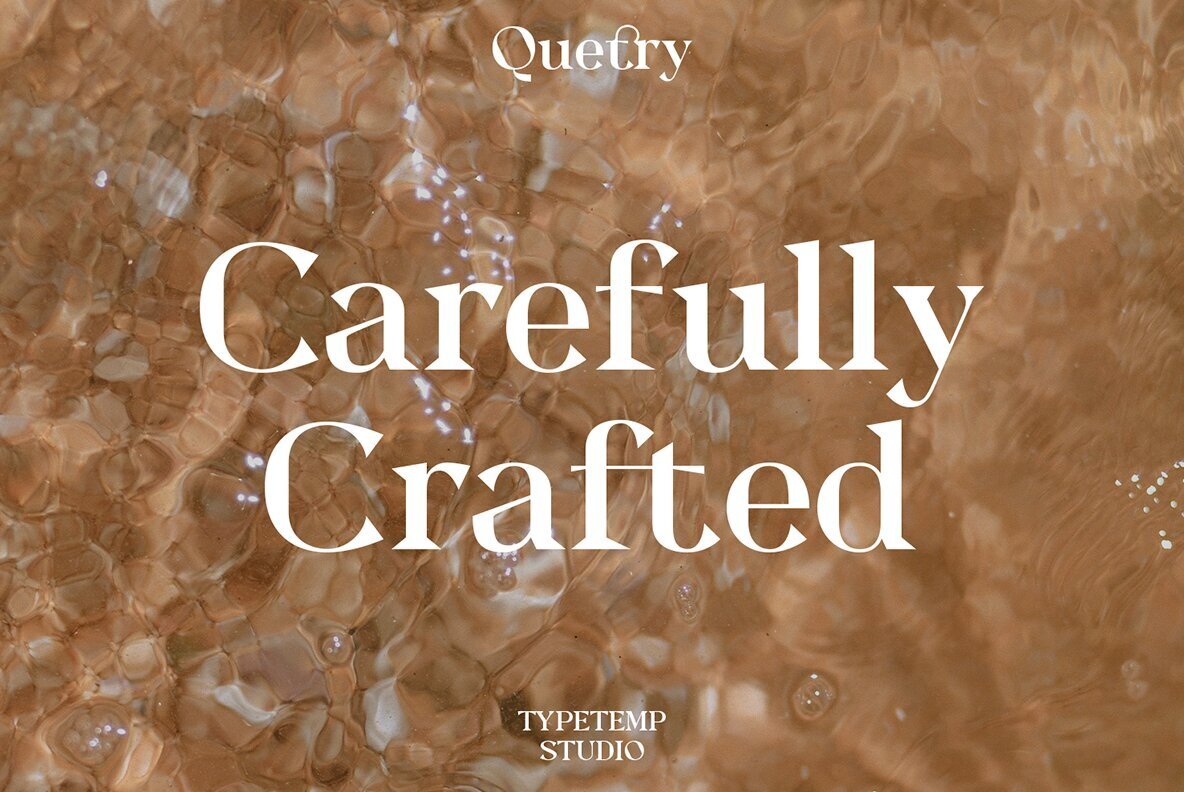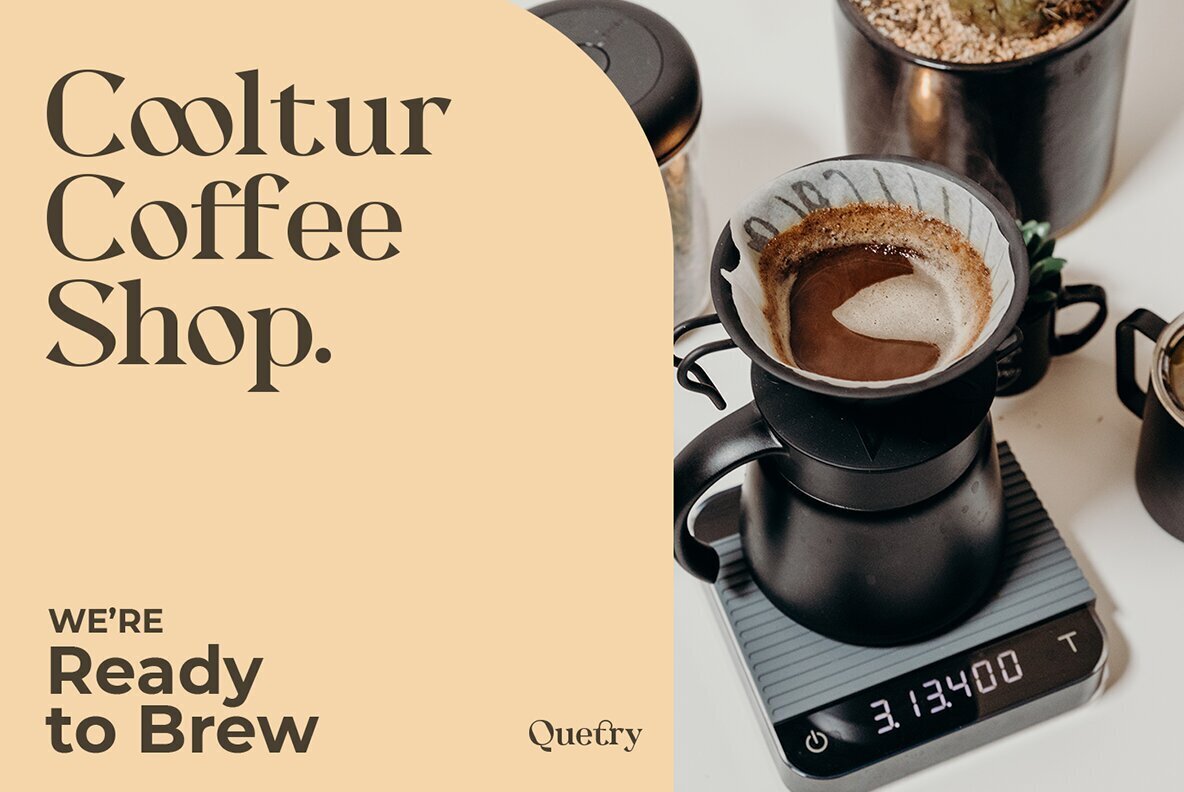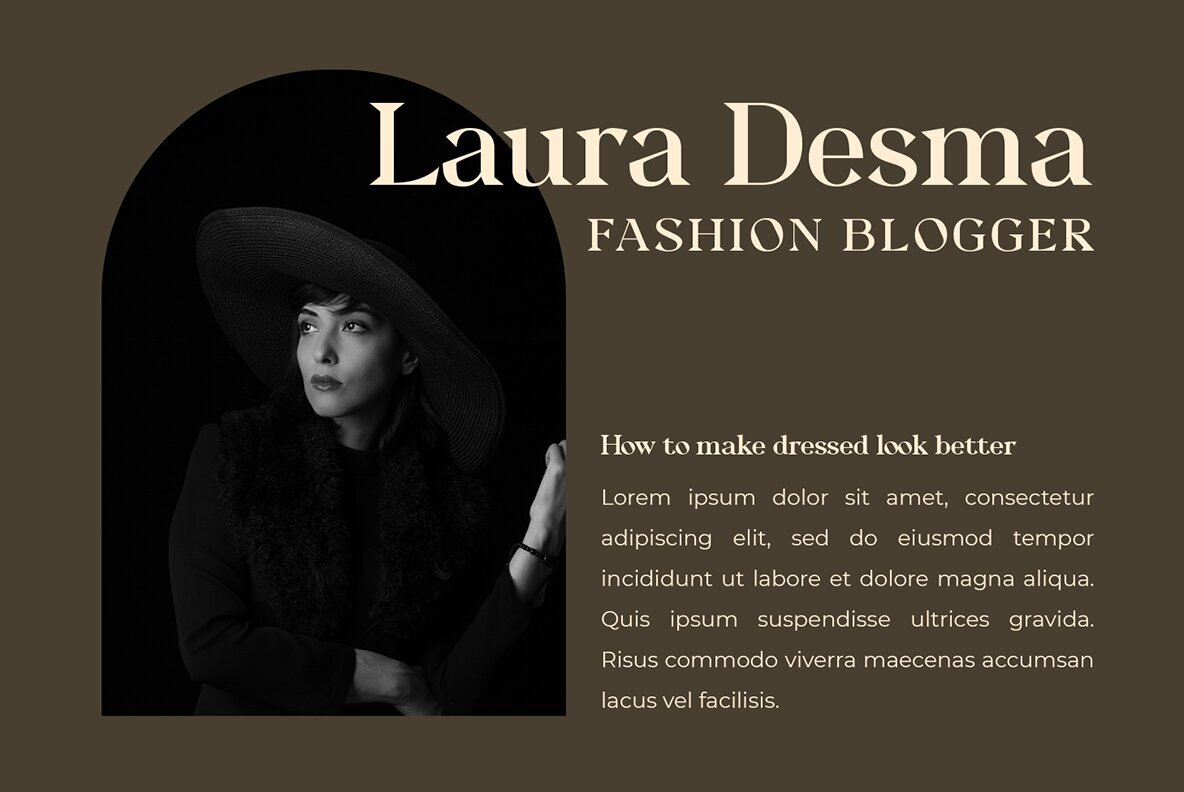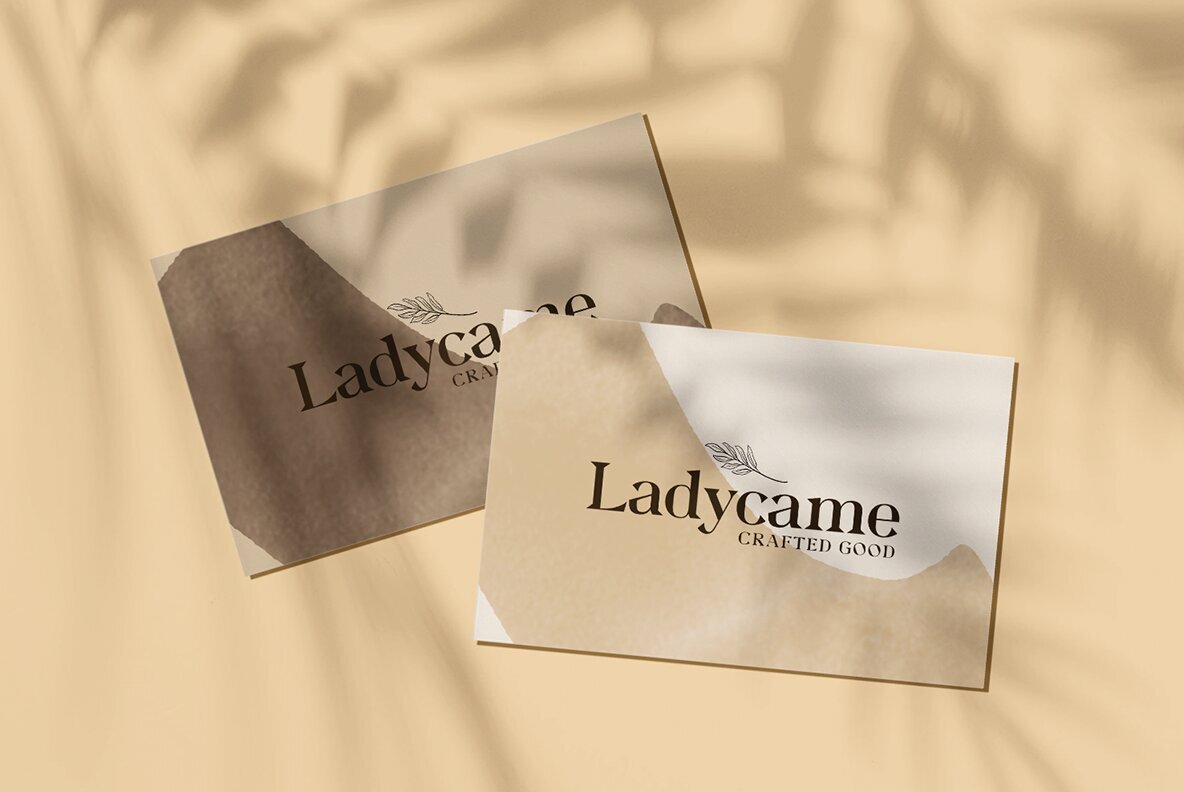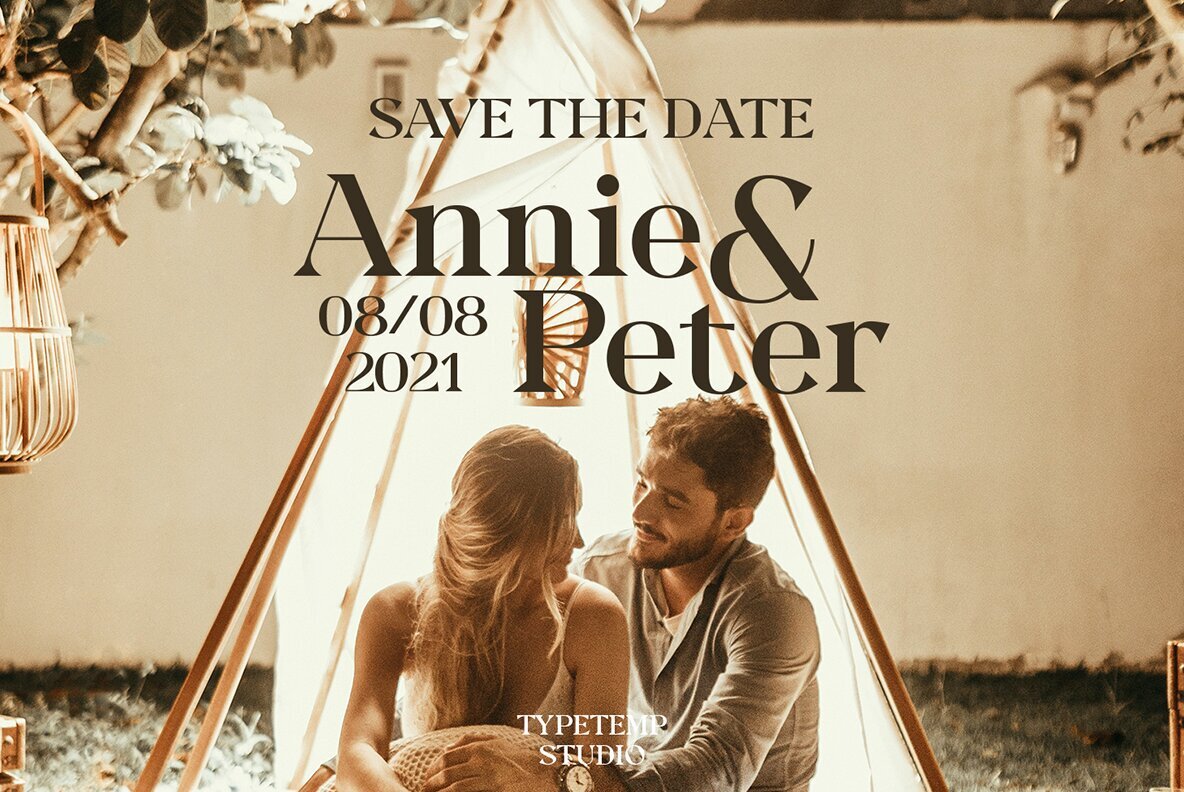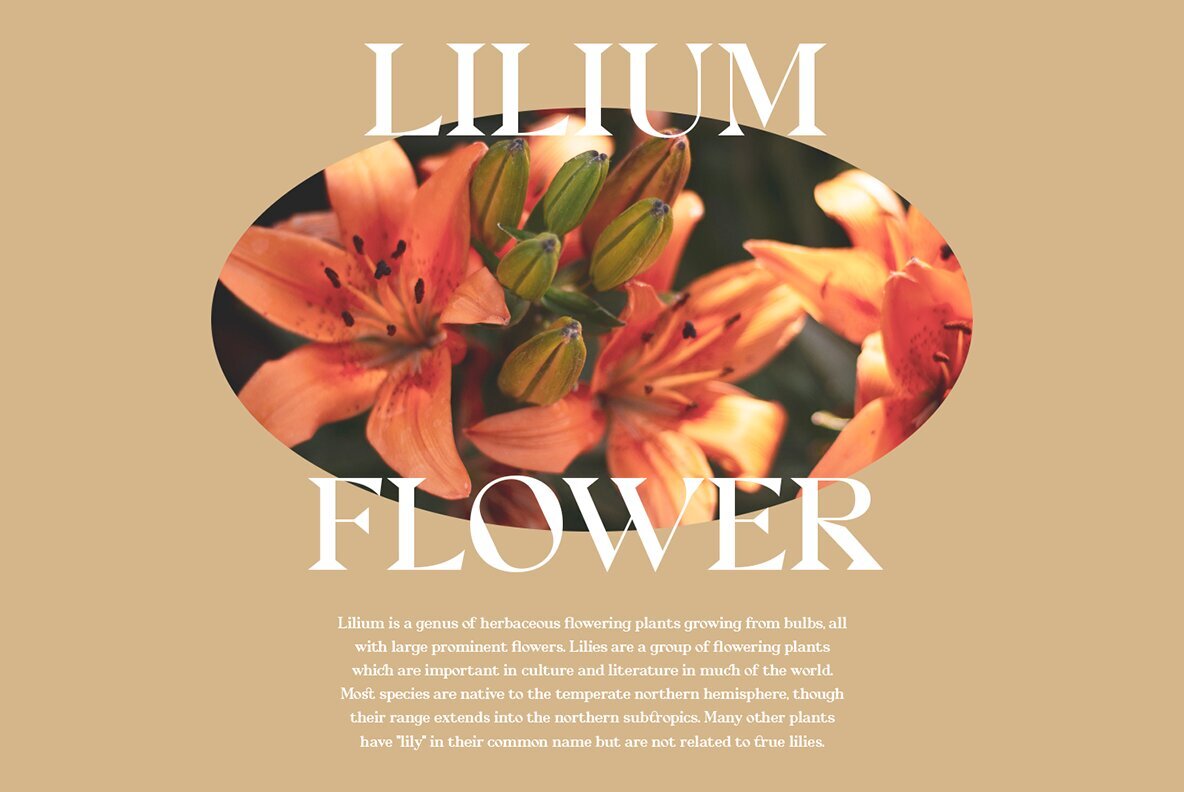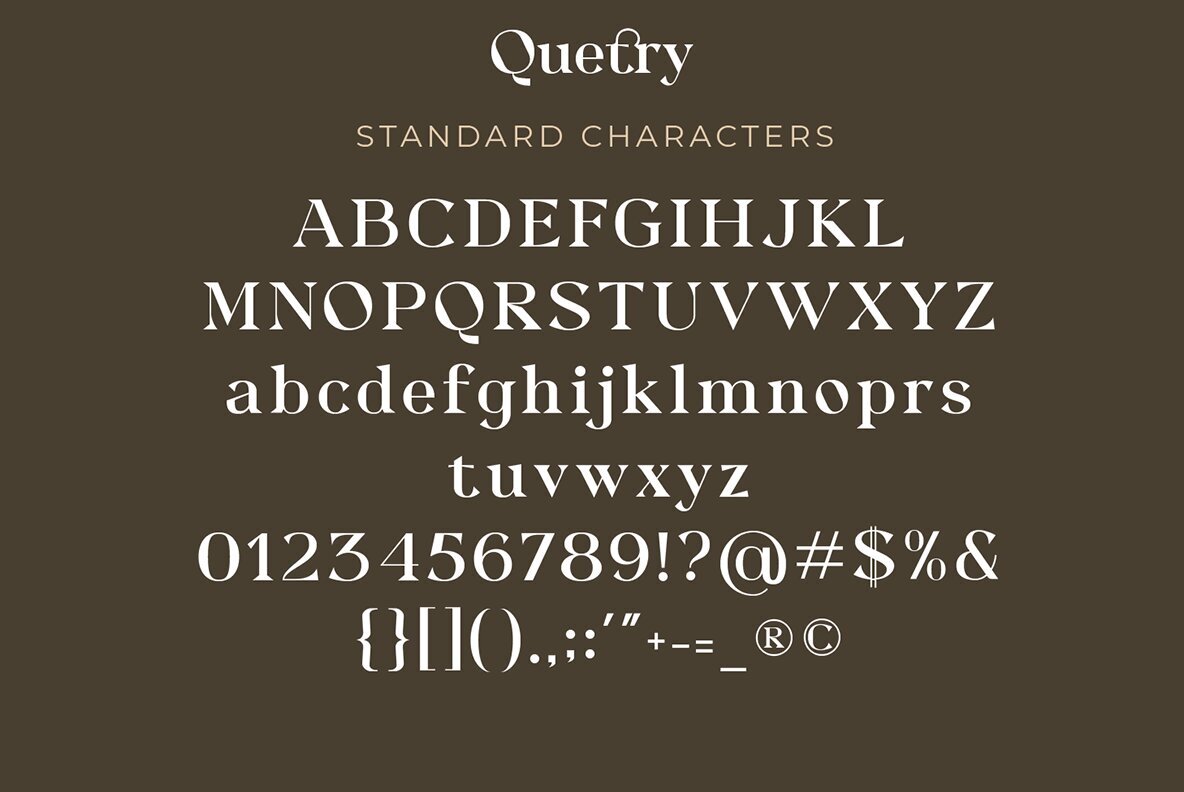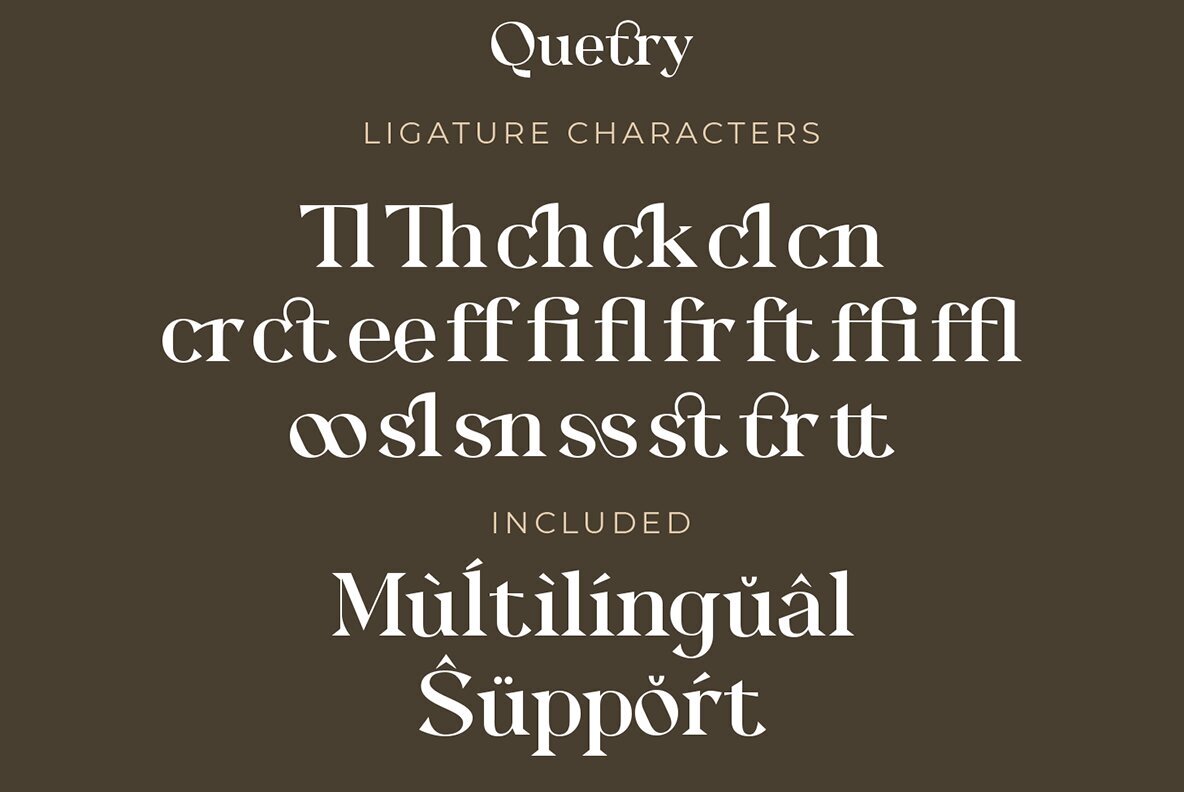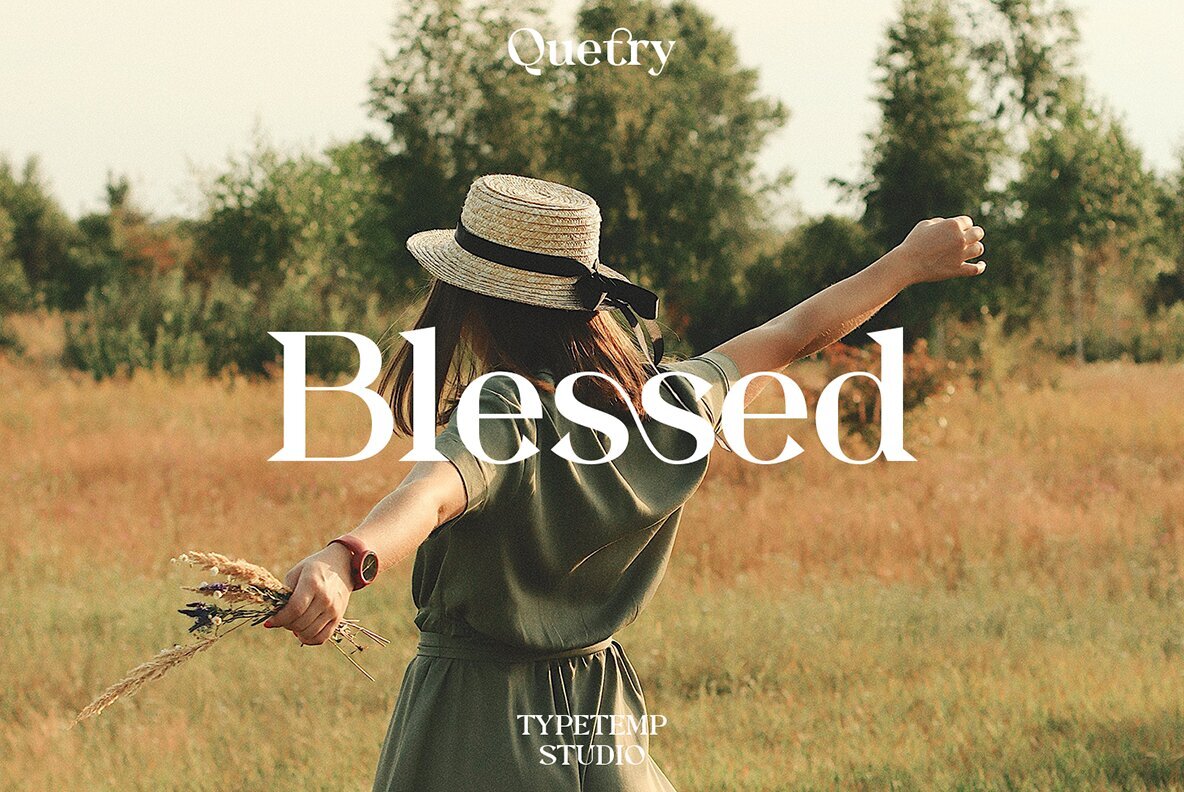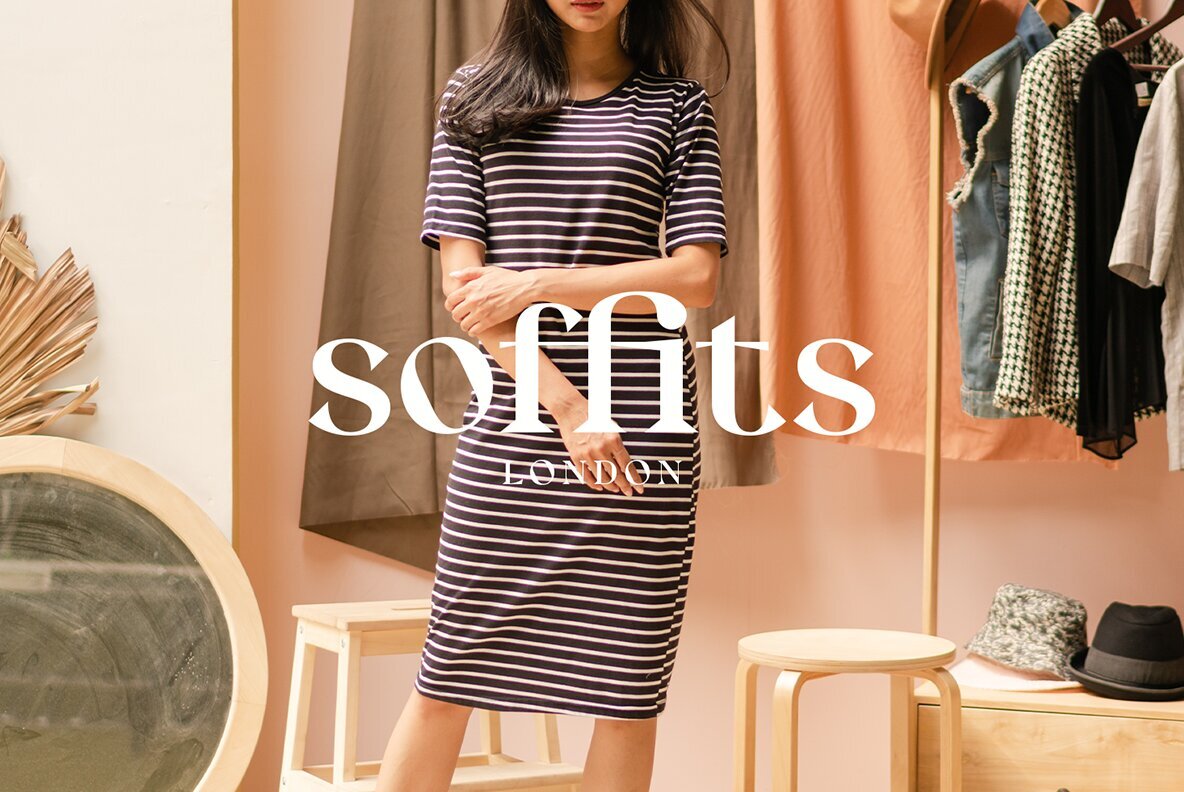
Quetry Font
Quetry Serif Regular
Quetry Serif is a stylish typeface that blends both modern and vintage aesthetics. It includes alternatives and ligatures, enhancing your ability to create stunning logos, quotes, social media posts, blog entries, branding projects, magazine imagery, and wedding invitations. Enjoy using the Quetry Font as a perfect addition to your typography collection! If you have any questions, feel free to contact me. Thank you, and happy creating!Quetry Serif Display Font: Modern Meets Vintage